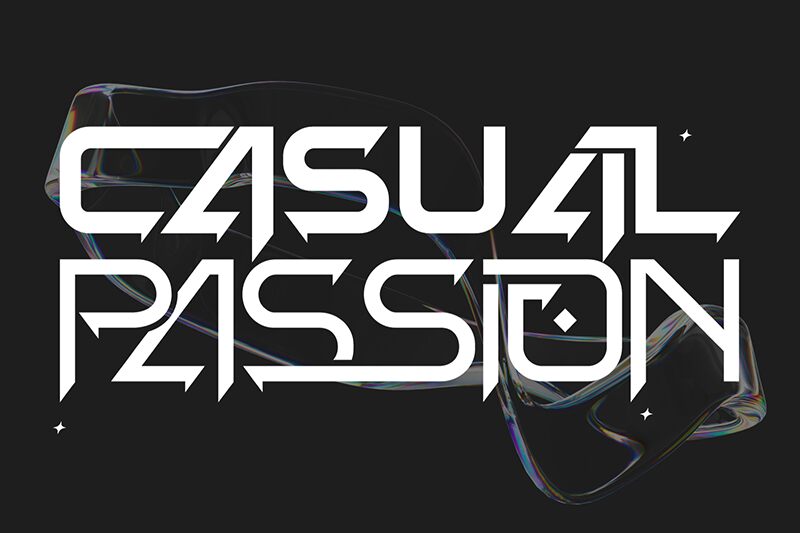
Casual Passion font family designed by 177Studio is an elegant Gothic typeface with both a modern and medieval appeal. Its design follows geometric concepts, making it look sharp, angular, and minimalistic. It’s available in 2 styles. The slightly styled letters contribute to the font’s beautiful overall appearance and readability. The font family is available for instant download without registration.
Make a contemporary typography professional or personal design statement on posters, websites, apps, print, and other media. Use it for the branding and advertising of rock bands, movies, TV shows, video games, etc.